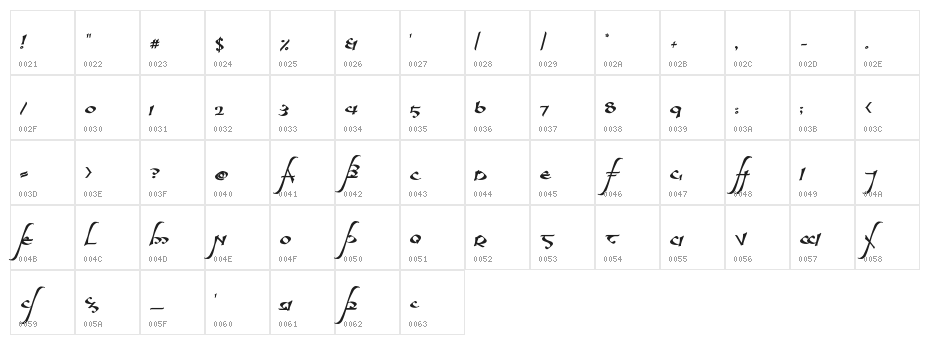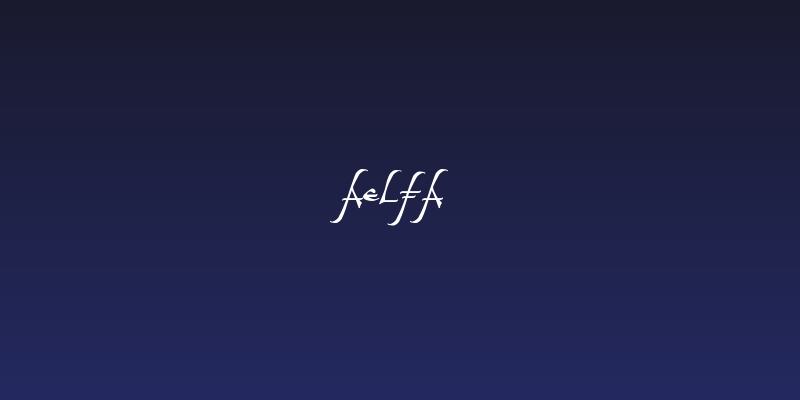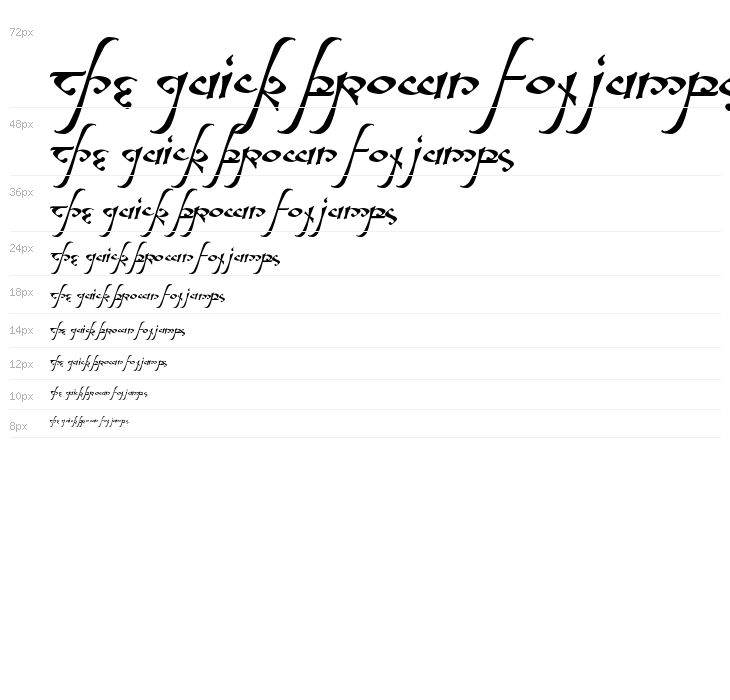
aelfa Font
aelfa Description
This font features an elegant and flowing script style, reminiscent of calligraphic handwriting with a medieval touch. The characters are elongated with sharp, pointed serifs and intricate curves, giving it a distinct and artistic appearance. The uppercase letters are particularly ornate, with sweeping lines and decorative elements that enhance their visual appeal. The lowercase letters maintain a consistent style, complementing the uppercase with their own unique flair. Numbers and special characters are designed to match the overall aesthetic, ensuring a cohesive look across all text elements.
| Use Case | Logos, Invitations, Decorative text |
| Proposed Projects | Ideal for wedding invitations, fantasy-themed projects, book covers, and branding that requires a touch of elegance and historical charm. |